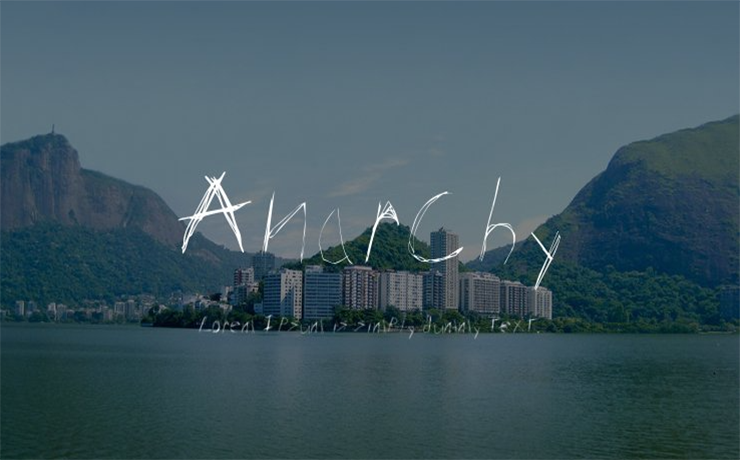
Anarchy Font is a script trash typeface that closely mimics the original handwriting, offering a subtle cursive that doesn’t include a bunch of blooms.
The whole structure is randomly drawn by the designer with the help of a pencil. So you will see that the height and width of each letter are not equal. Because it is not properly planned.
So some letters are long and some are short. But it will really give a unique design according to the need of the market. As we know it is a time of competition.
It would also look great for signing, kids elements, posters, advertisements, flyers, brochures, stationery, books covers, product packaging, gift papers, and many more where you like.